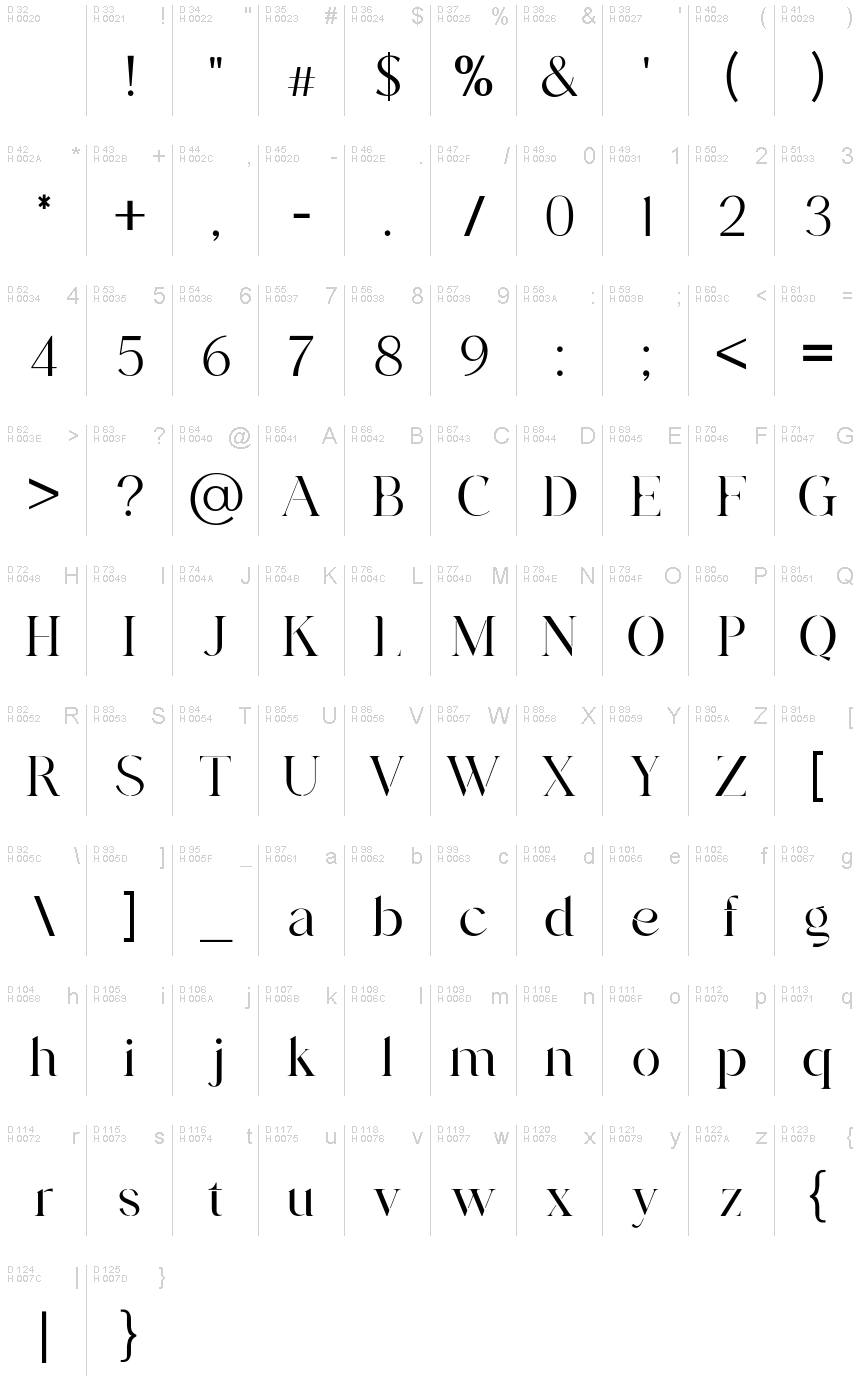
Glitterboard
Glitterboard, a captivating serif font crafted by UI Creative, exudes a timeless elegance with a touch of modern flair. Its crisp, clean lines and subtle serifs create a refined, sophisticated aesthetic, while the slight variations in stroke thickness lend a unique character to each letterform. The font's balanced proportions and harmonious letter spacing make it a visually appealing choice, conveying a sense of stability and confidence.
Glitterboard's versatility shines through, making it a suitable selection for a wide range of design applications. From high-end editorial work to impactful branding and advertising campaigns, this font's refined yet distinctive personality can elevate the visual identity of a project, commanding attention and evoking a sense of sophistication.